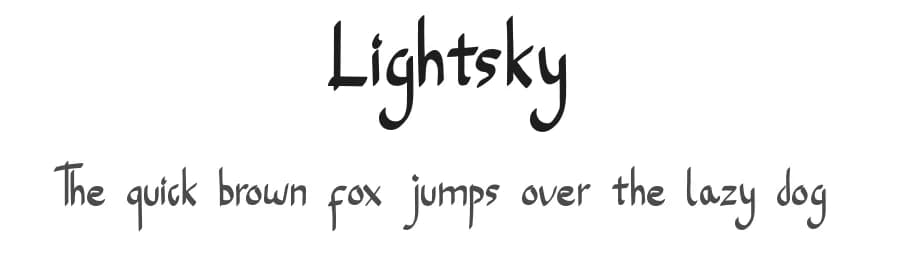
About Lightsky Font
Introducing Lightsky is a modern handwritten font.
It was inspired by calligraphy pen and it is perfect for adding a natural touch to your designs.
It is perfect for logo designs, branding, posters, cover / book titles, art quotes, clothing designs, product packaging, labels, special events or anything that requires a handwritten feel.
Lightsky Specifications
| Font Family | Lightsky |
| Designer | Herya Wildan |
Lightsky Font